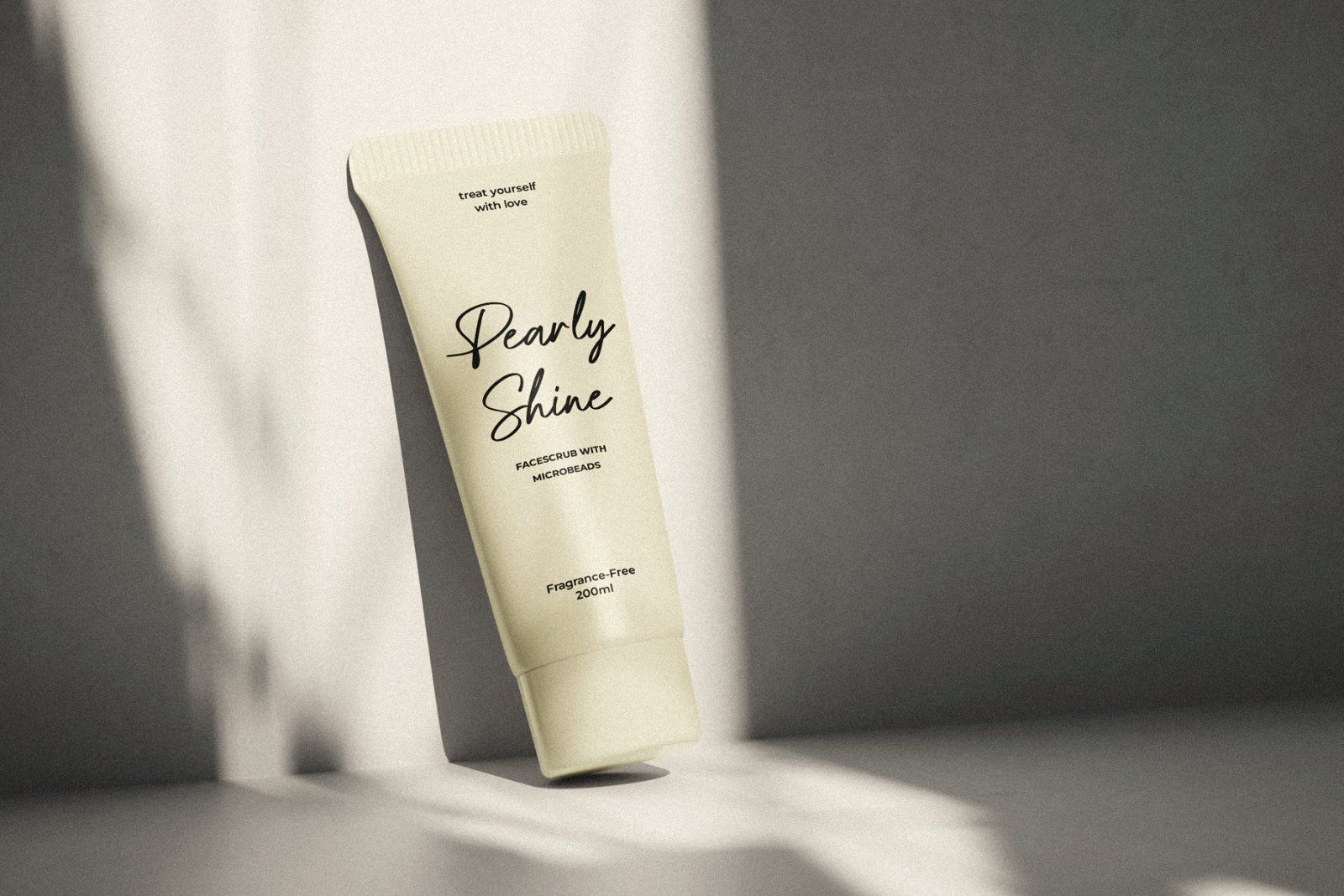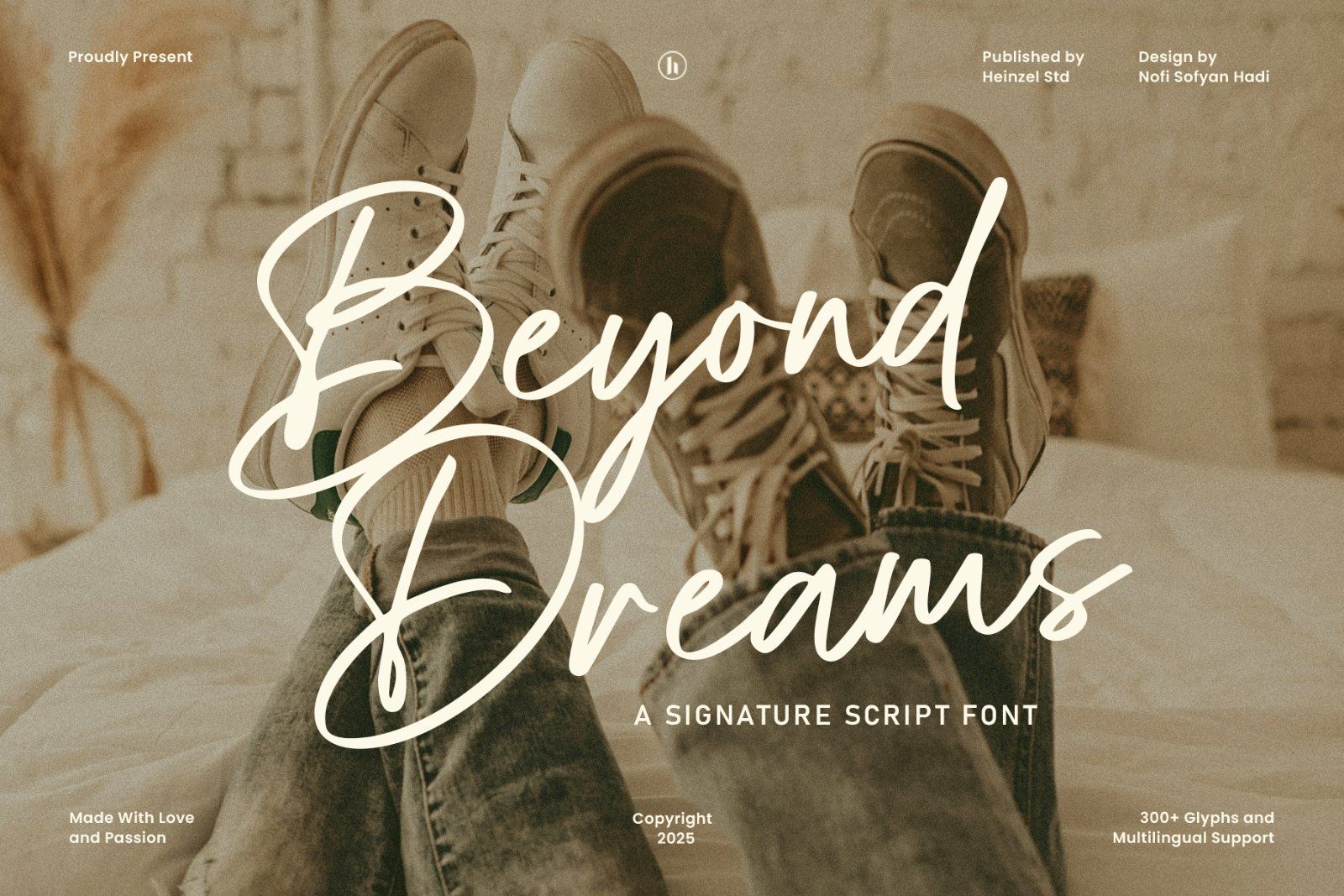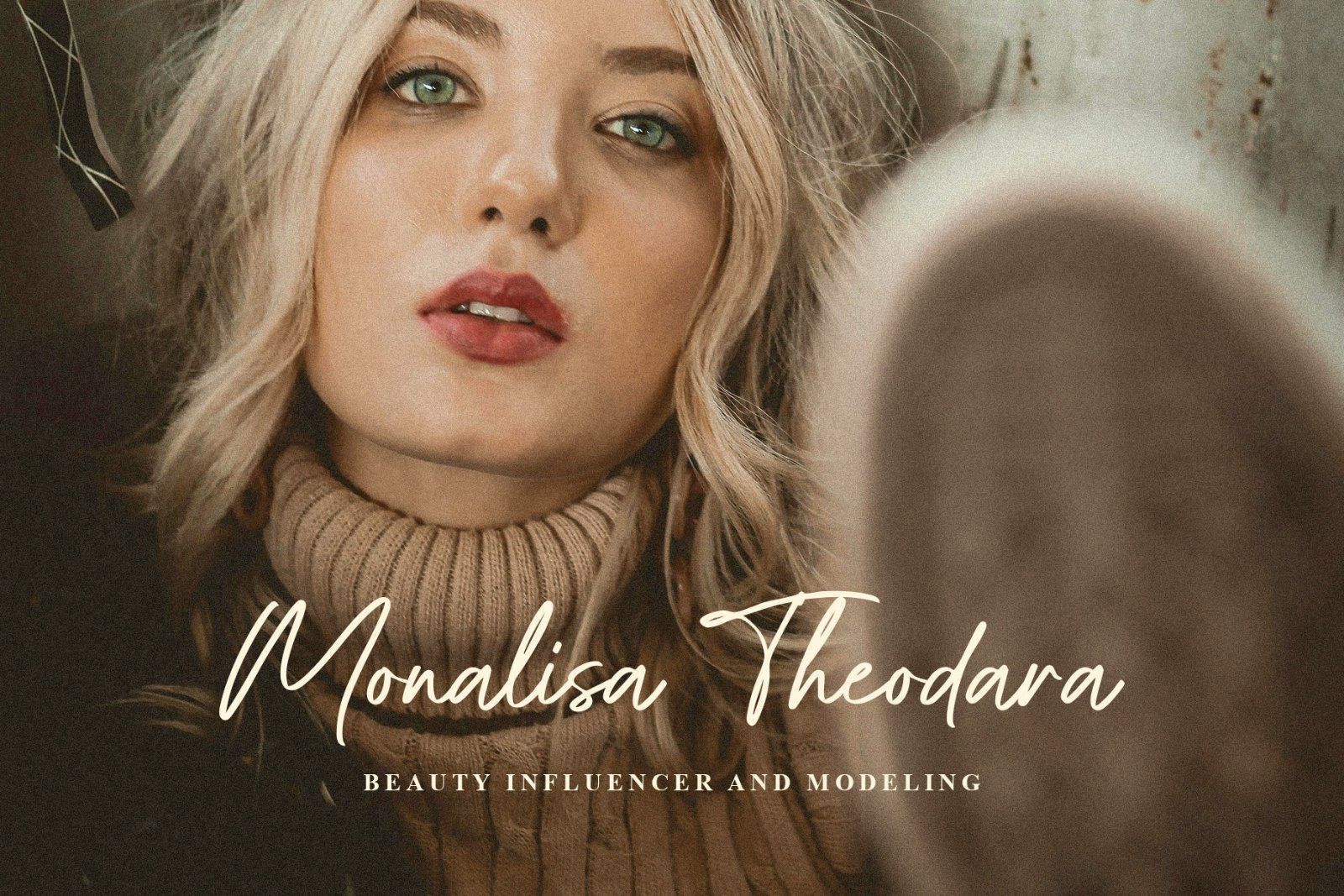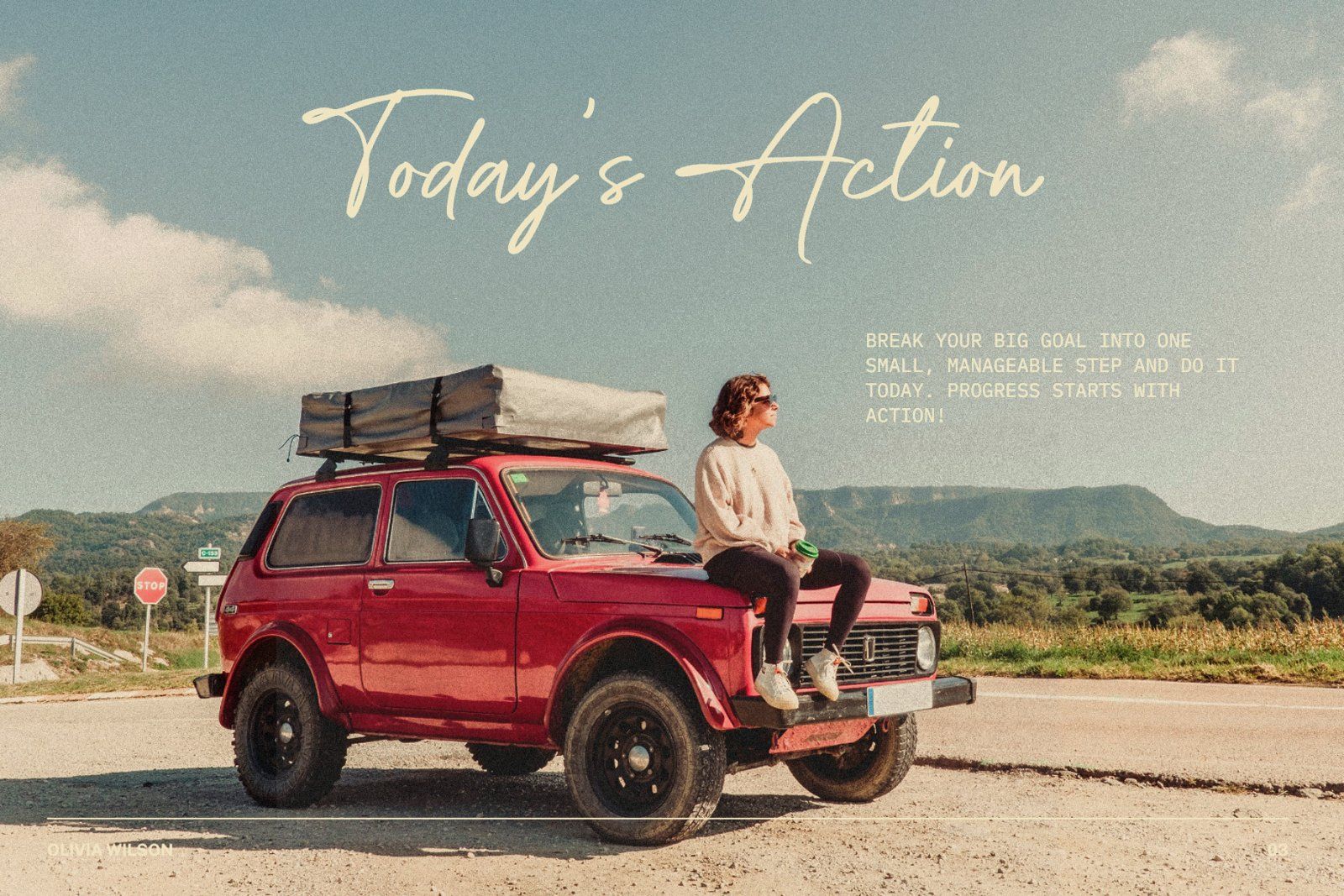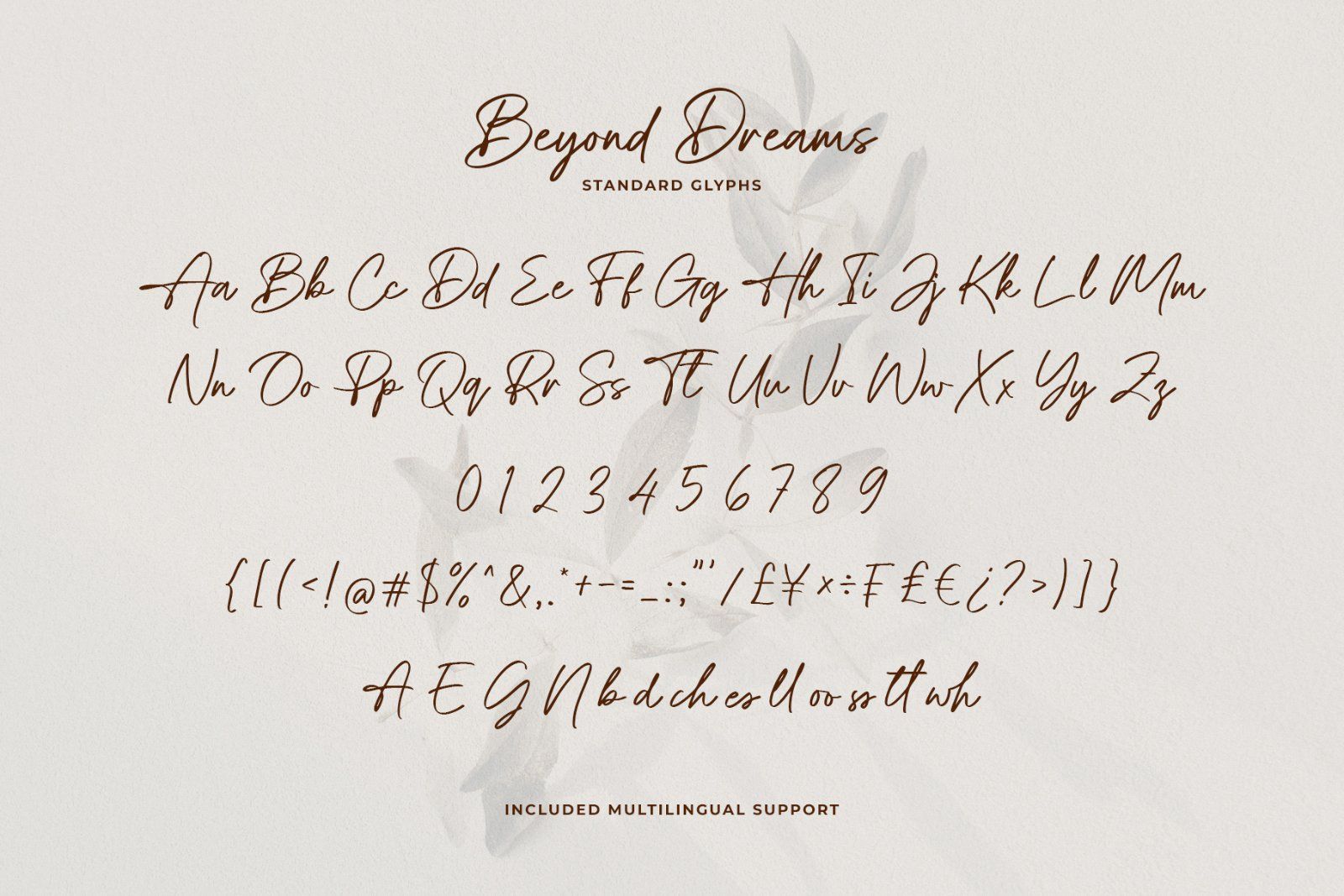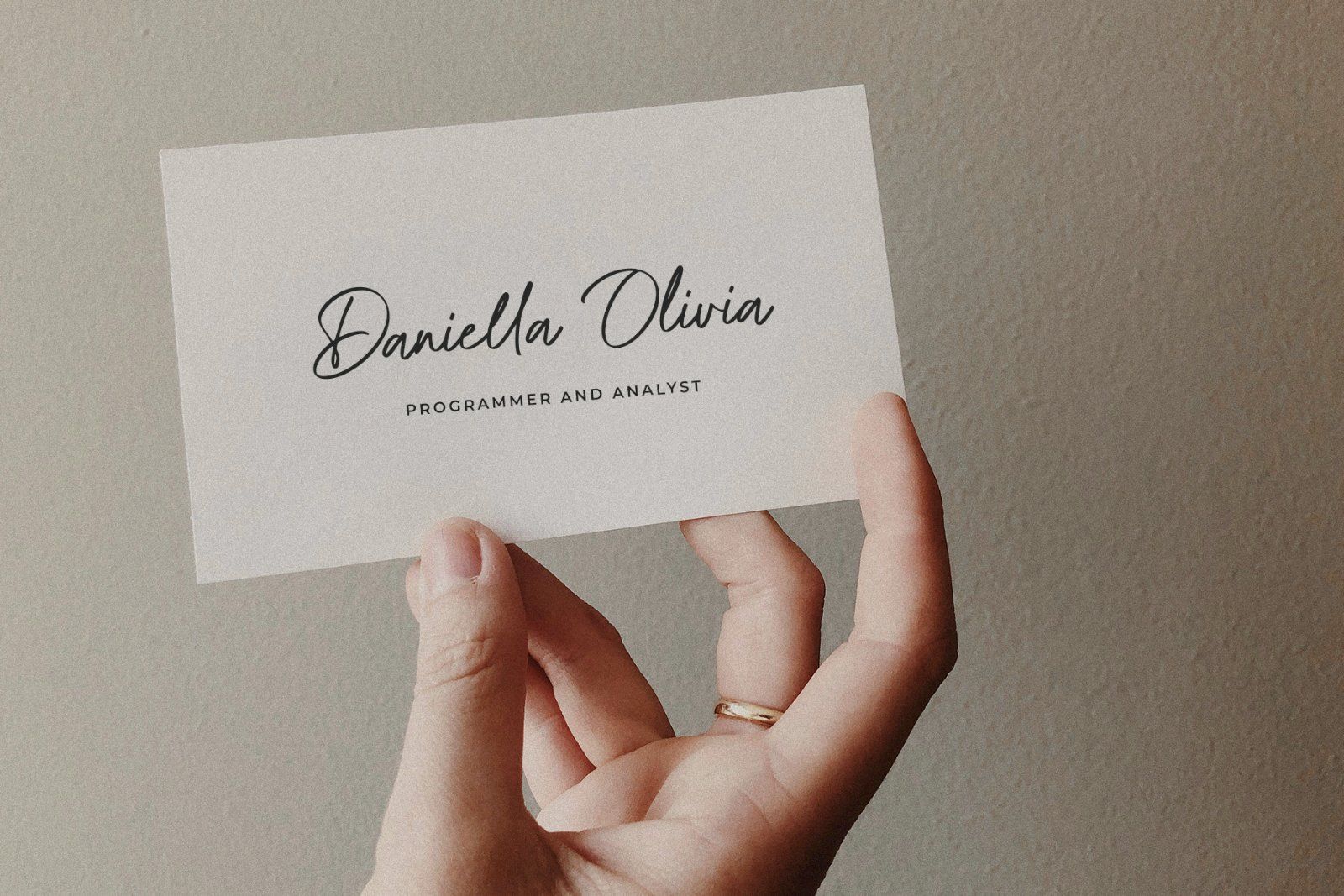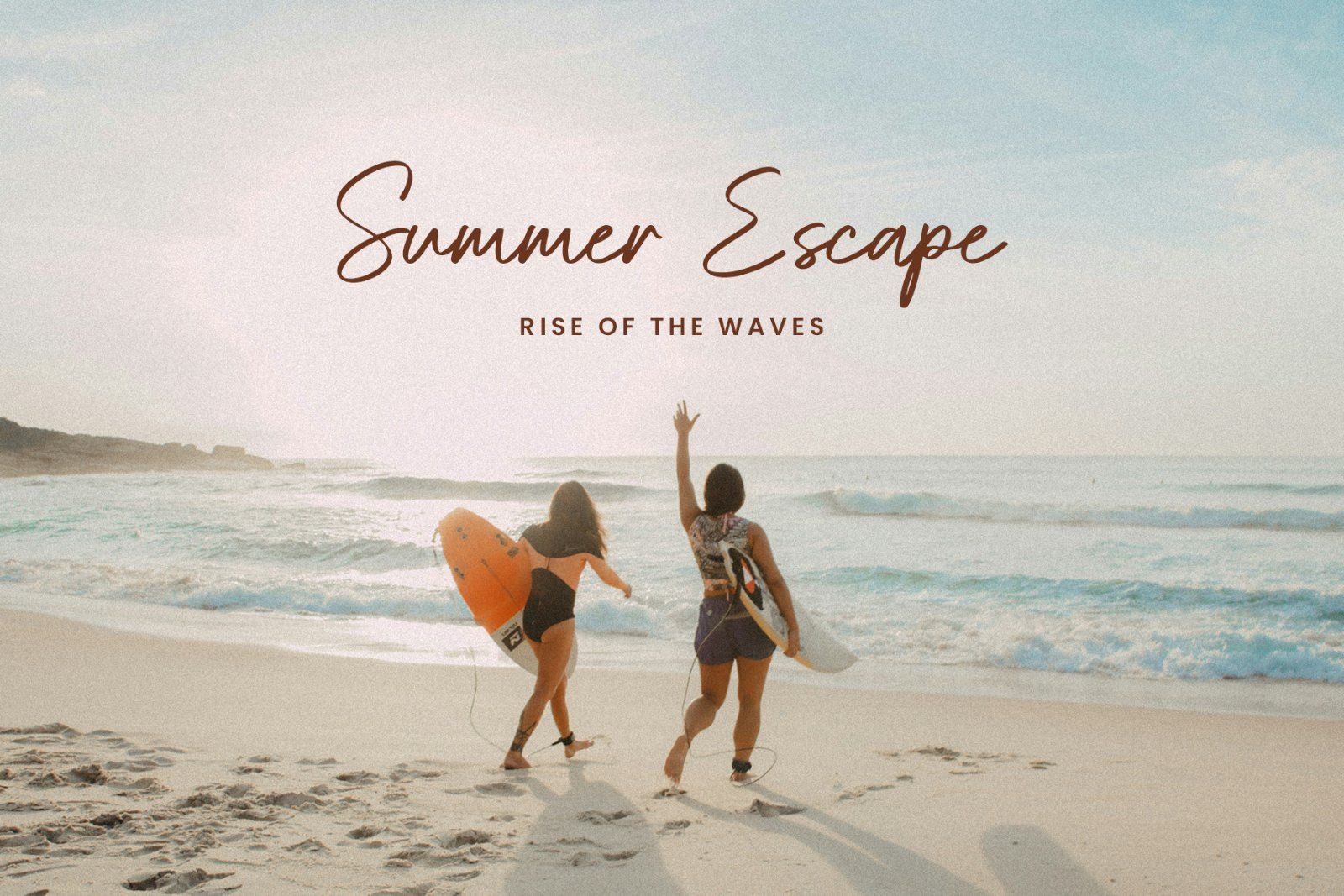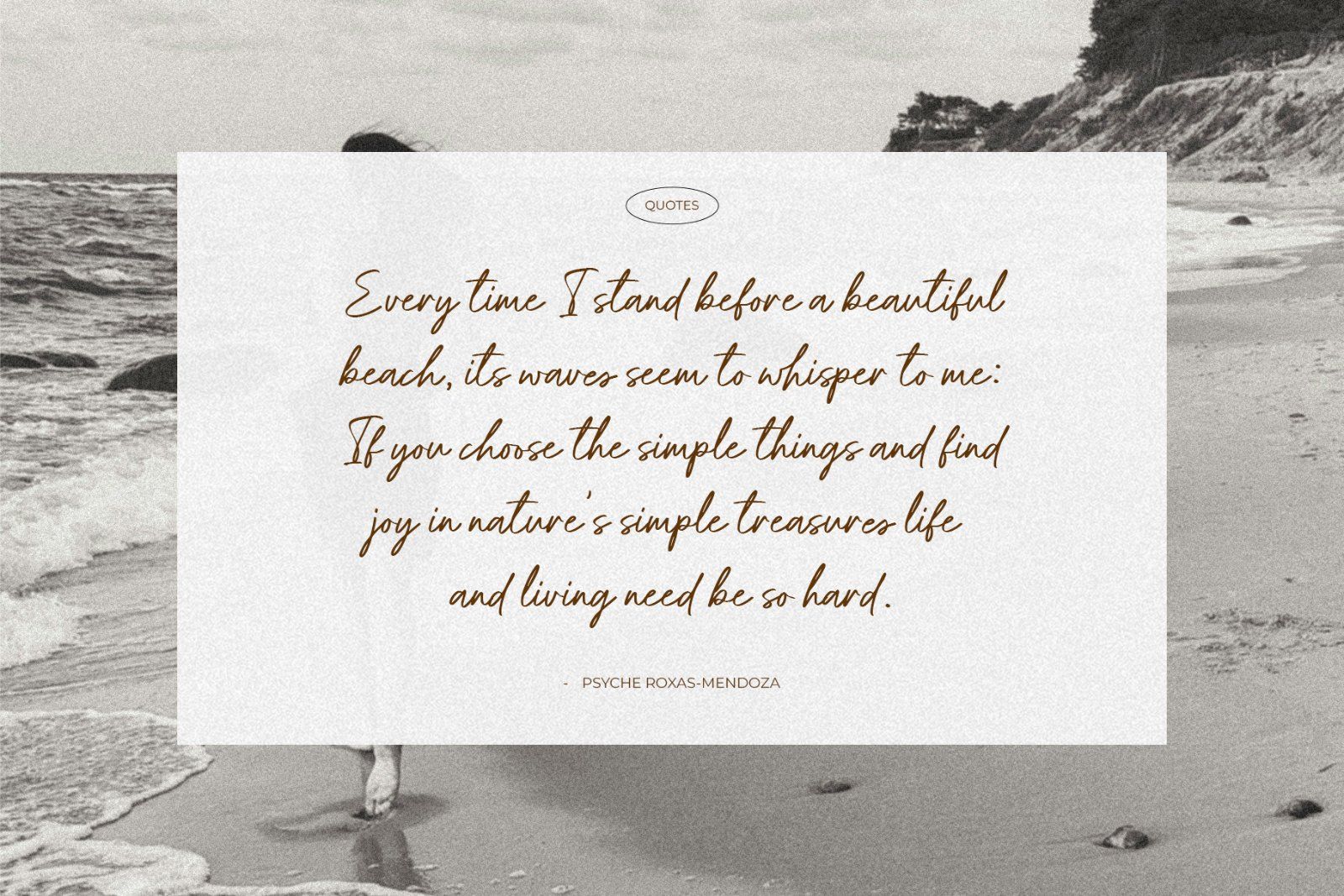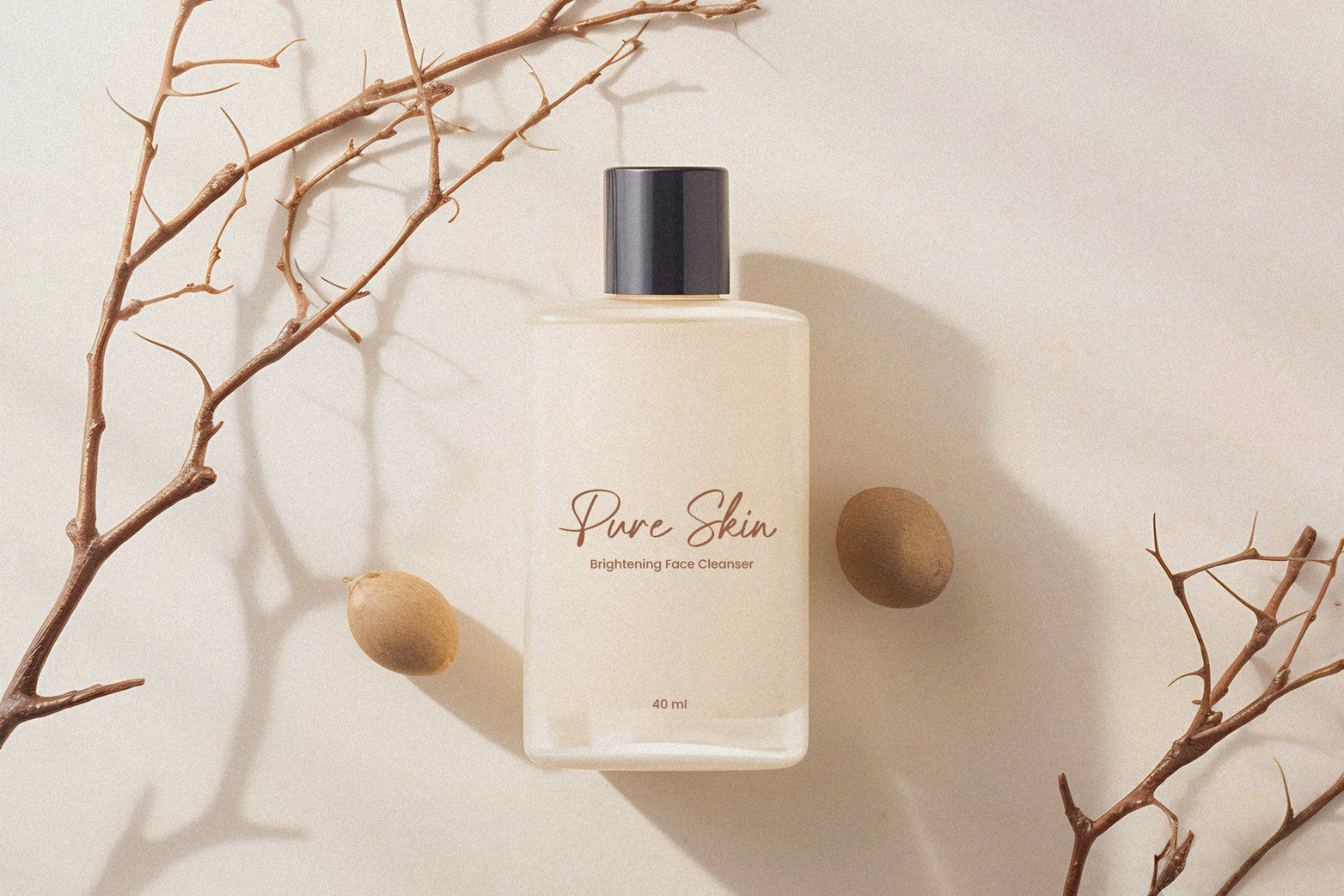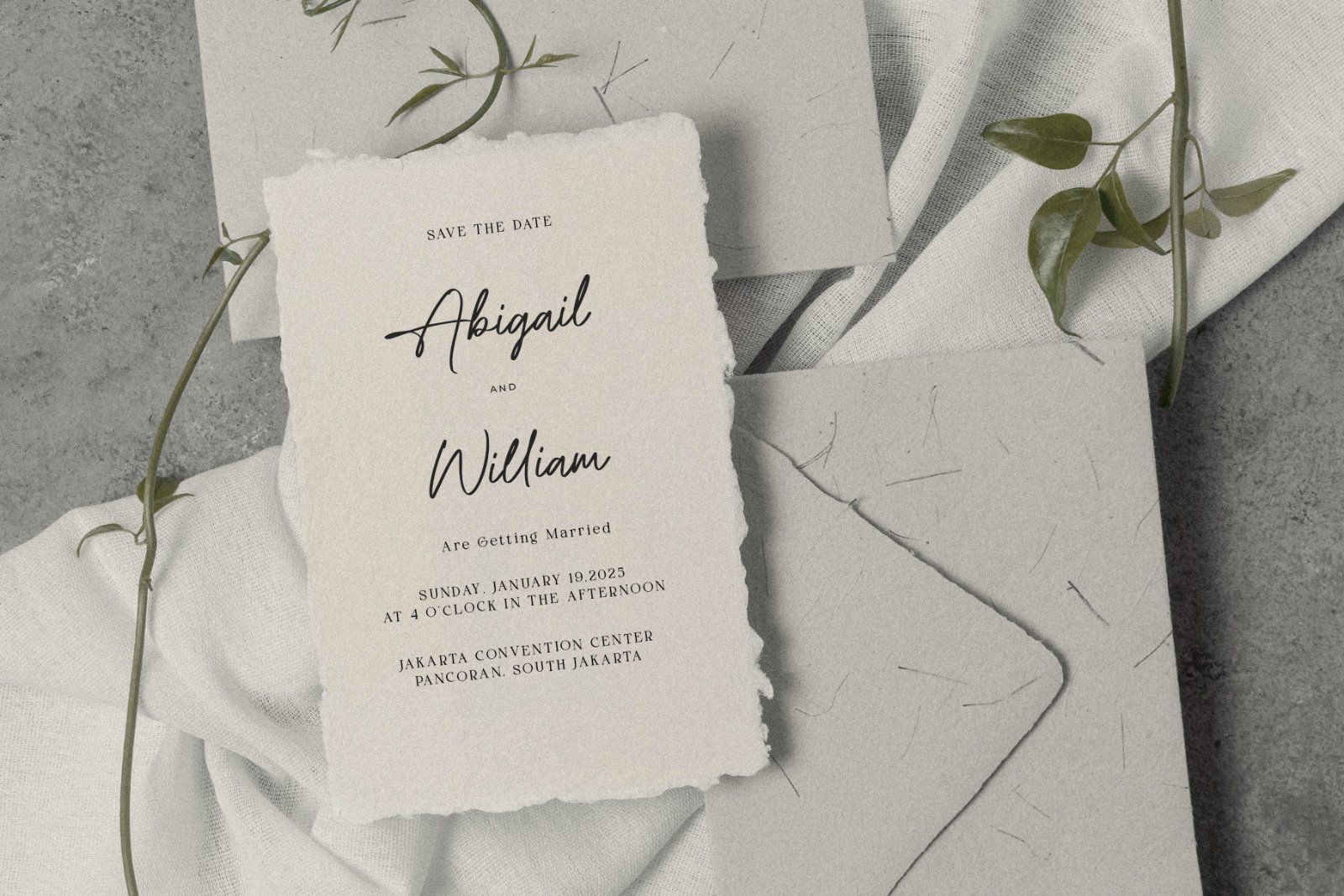
Beyond Dreams is a modern signature script font designed to bring elegance, personality, and authenticity to every creative project. Featuring smooth handwritten strokes, natural curves, and stylish letterforms, this font captures the beauty of genuine handwriting while maintaining excellent readability. Whether you're creating luxury branding, wedding invitations, logos, social media graphics, packaging, photography watermarks, or fashion editorials, Beyond Dreams delivers a sophisticated and timeless look.
With over 300 glyphs, multilingual language support, beautiful ligatures, and carefully crafted alternates, Beyond Dreams offers the flexibility to create unique typography that feels personal and refined. Its flowing script makes every word look effortlessly stylish, making it the perfect choice for designers, entrepreneurs, and content creators looking to elevate their visual identity.
From premium branding to elegant stationery and modern digital content, Beyond Dreams is crafted to help your designs leave a memorable impression.